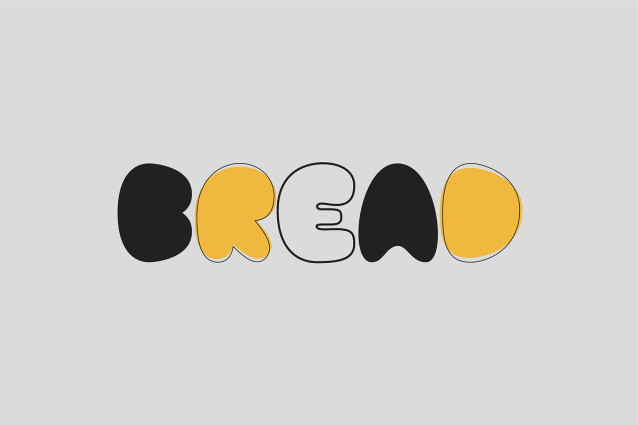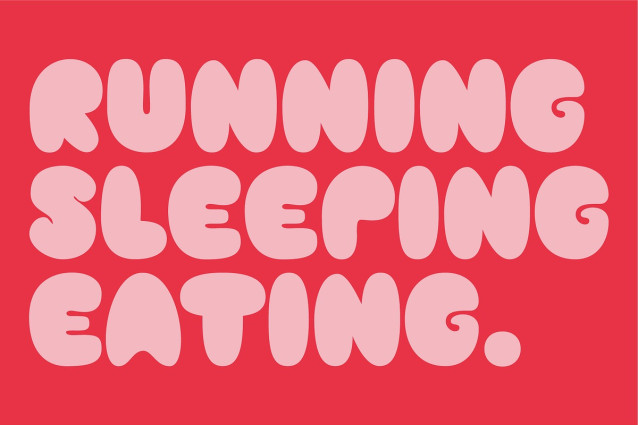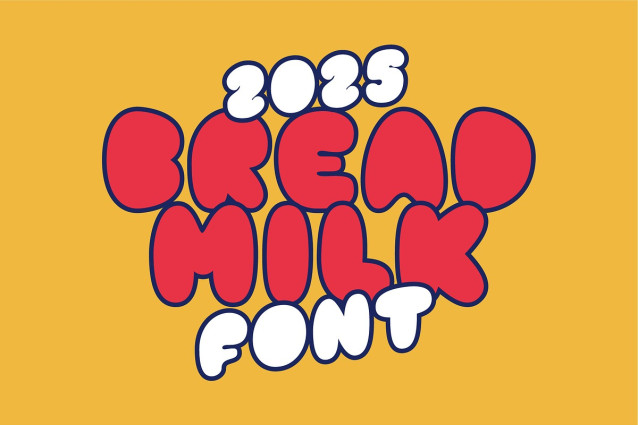
Bread Milk Font is a chubby, cheerful display typeface that radiates warmth and friendliness. Designed with bold, rounded shapes and soft curves, it captures the playful essence of hand-drawn lettering while maintaining a clean, modern structure.
Its plump and bubbly letterforms make it ideal for branding, packaging, posters, children’s products, and creative headlines that need a fun yet professional personality.
With its smooth outlines and balanced proportions, Bread Milk adds a touch of comfort and joy to any design — like the perfect blend of softness and style.